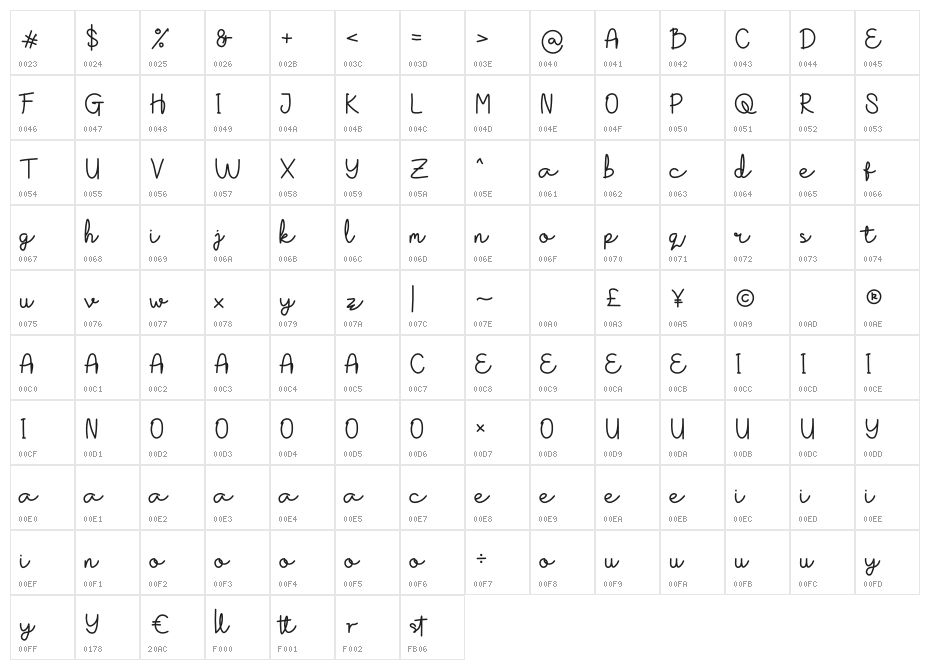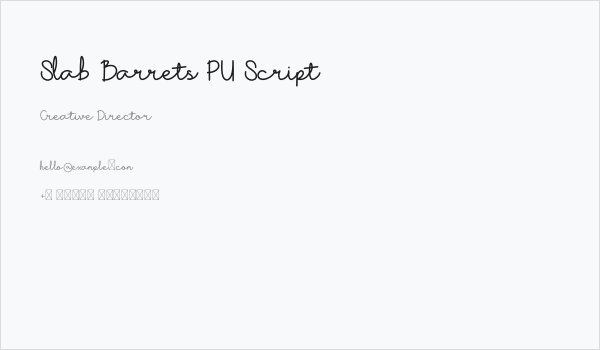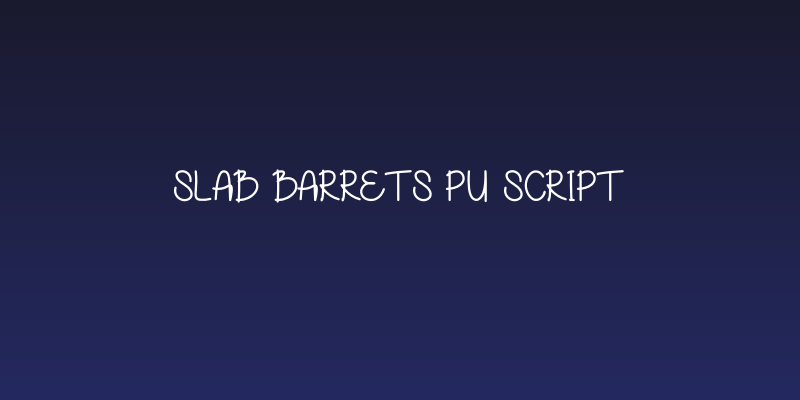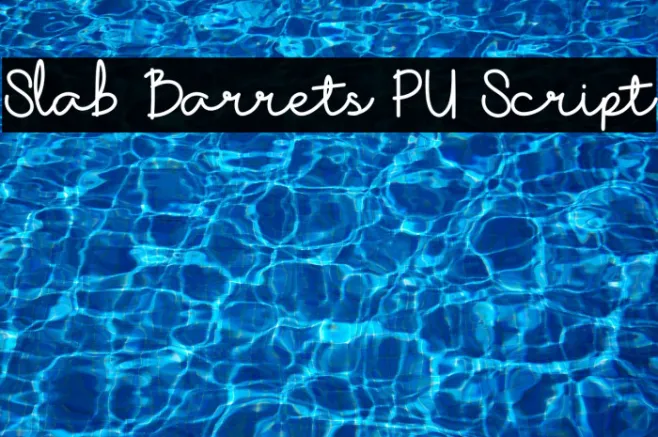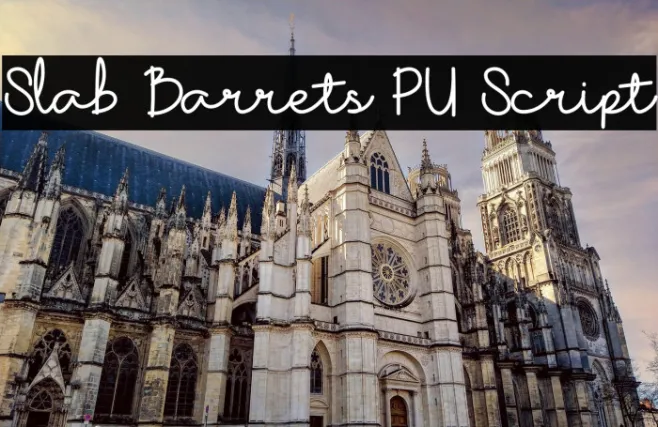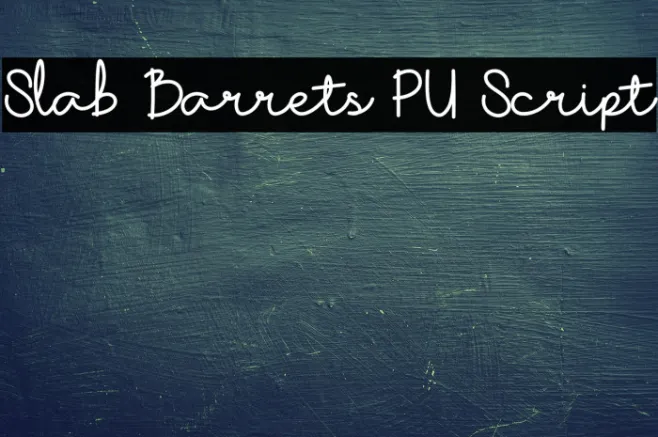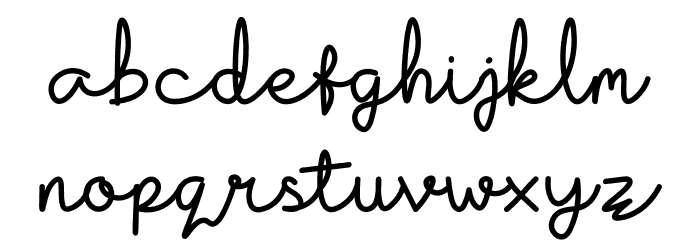
Slab Barrets PU Script Font
Slab Barrets PU Script Description
This font features a playful and casual script style, characterized by its smooth, flowing lines and handwritten appearance. The uppercase letters are bold and rounded, giving a friendly and approachable feel. The lowercase letters maintain a consistent flow, enhancing the handwritten aesthetic. The numerals and special characters are designed to match the overall style, ensuring a cohesive look. This font is ideal for projects that require a personal touch, such as invitations, greeting cards, and branding materials. Its legibility and charm make it suitable for both digital and print media.
| Overall Style | Casual, Handwritten |
| Proposed Projects | Invitations, greeting cards, branding materials, digital and print media. |